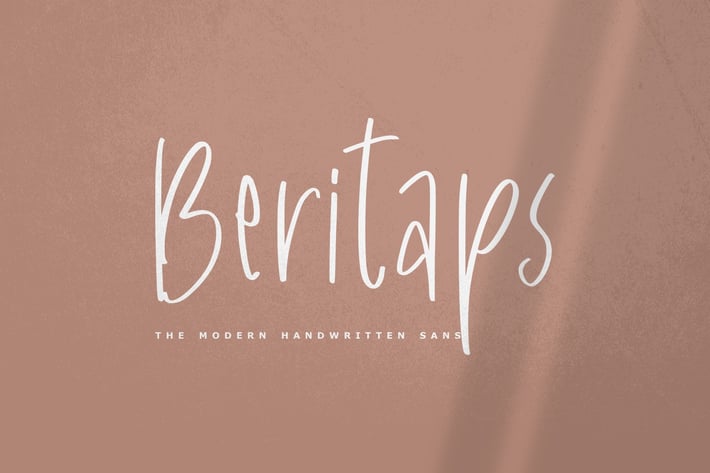
Beritaps - The Handwritten Font
A Handwriting script and unique character! itβs perfect for logos, name cards, magazine layouts, invitations, headers, or even large-scale artwork.